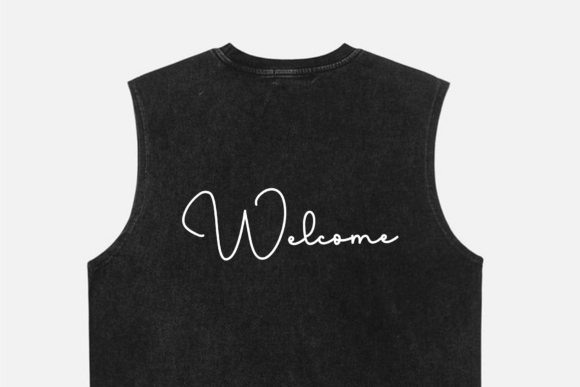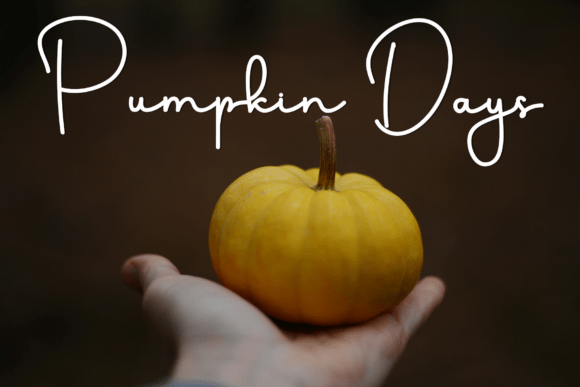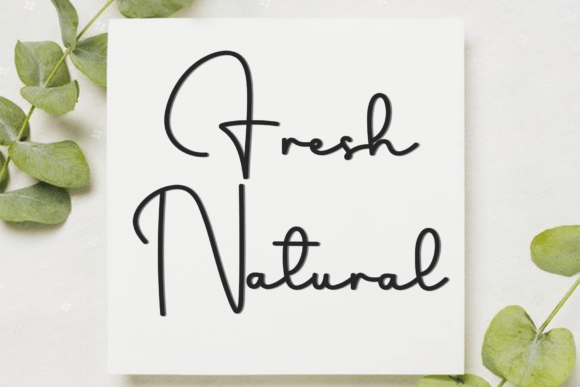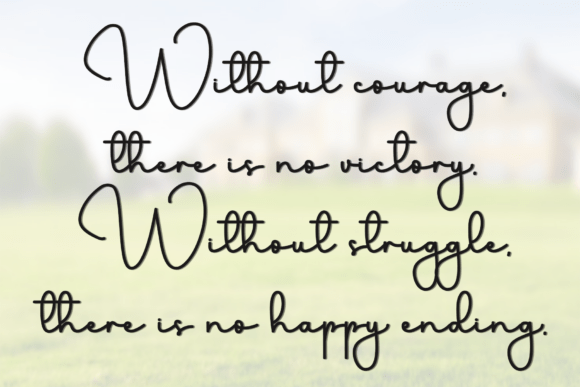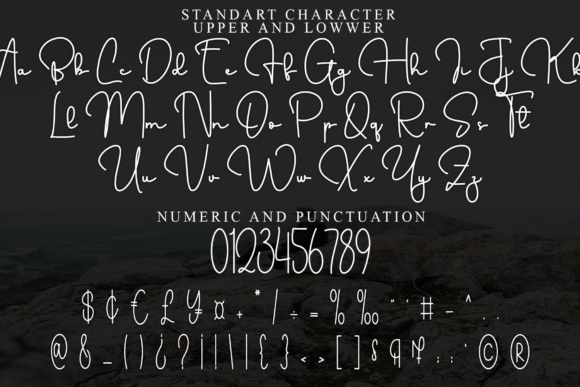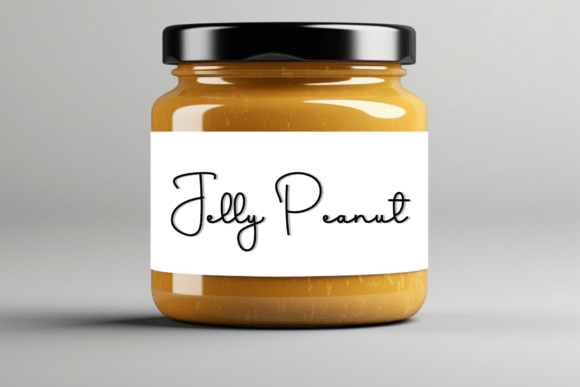
Introducing Fatality Font: Elevate Your Designs with a Unique Touch
In the world of typography, a font can make or break a design. It’s the foundation upon which creativity is built, and the right choice can elevate a project from ordinary to extraordinary. For designers and crafters seeking a beautiful and eye-catching font, look no further than Fatality Font. This stunning font is designed with a soft, unique touch that sets it apart from the rest, making it perfect for a wide range of creative projects.
The Distinctive Character of Fatality Font
Fatality Font boasts distinctive strokes that give it a special character, making it both meaningful and versatile. Its unique design ensures that it stands out in any project, whether it’s used for digital designs, crafts, or other creative works. The font’s natural style is compatible with various applications, including Windows and open-source platforms, making it accessible to a broad audience.
A World of Creative Possibilities
With Fatality Font, the possibilities are endless. Its various characters make it an ideal choice for design projects, crafts, and other creative works. Whether you’re a professional designer or a crafter looking to add a personal touch to your projects, this font is sure to impress. From brochures and posters to invitations and DIY crafts, Fatality Font can be used to create stunning visual content that appeals to a wide range of audiences.
Key Features of Fatality Font
- Unique and Eye-Catching Design: Fatality Font’s soft, unique touch sets it apart from other fonts, making it perfect for designers and crafters seeking a distinctive look.
- Versatile and Meaningful: The font’s distinctive strokes give it a special character, making it both meaningful and versatile for future use.
- Wide Range of Characters: The font features various characters, making it perfect for design projects, crafts, and other creative works.
Why Choose Fatality Font?
So, why choose Fatality Font for your next project? Here are just a few reasons:
- Enhance Your Designs: Fatality Font’s unique design ensures that your projects stand out from the crowd, making them more appealing to a wide range of audiences.
- Perfect for Creative Fields: The font is ideal for designers, crafters, and artists seeking a beautiful and eye-catching font for their projects.
Tips for Using Fatality Font
To get the most out of Fatality Font, here are a few tips:
- Experiment with Different Sizes: Try using Fatality Font in different sizes to see how it looks in various contexts.
- Pair with Other Fonts: Experiment with pairing Fatality Font with other fonts to create a unique and visually appealing combination.
- Use in Digital and Print Projects: Fatality Font is perfect for both digital and print projects, making it a versatile addition to your font library.
In conclusion, Fatality Font is a beautiful and eye-catching font that is sure to elevate your designs. Its unique and distinctive character makes it perfect for designers and crafters seeking a font that stands out from the crowd. With its compatibility with various applications and wide range of characters, Fatality Font is an ideal choice for a wide range of creative projects. So why not give it a try and see how it can enhance your designs?